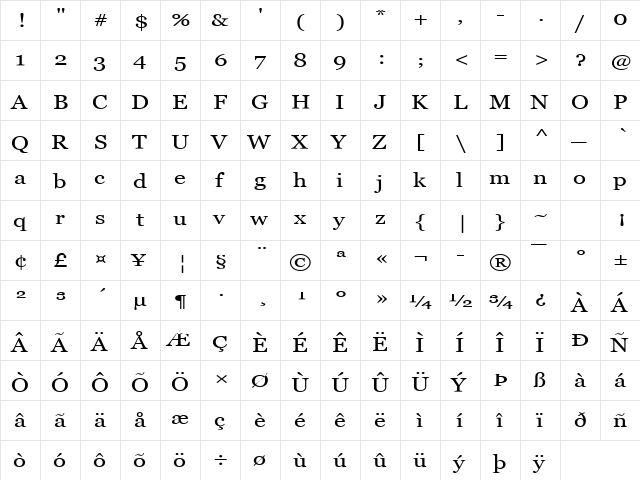
A Perfect Circle Regular
| Foundry | Shadavar |
| Designer | Shadavar |
Design Context for A Perfect Circle Typeface
A Perfect Circle offers clean, dependable letterforms without strong stylistic allegiance, making it a practical choice for designers who need flexibility.